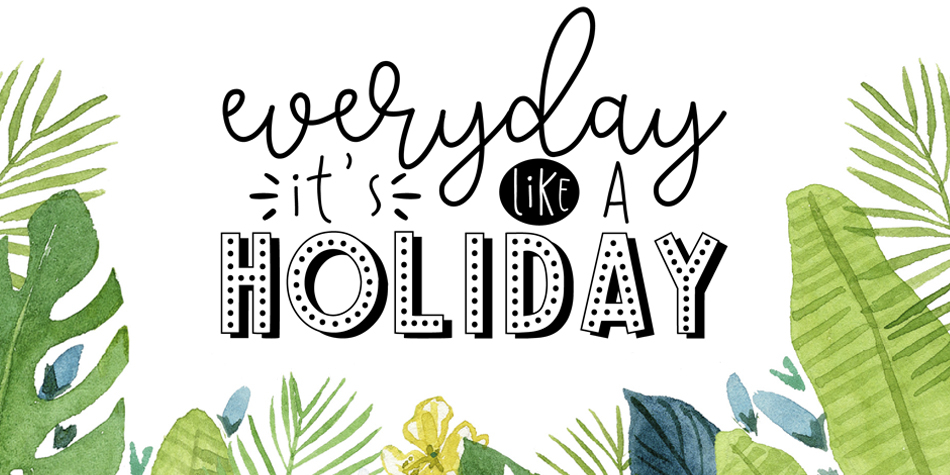
HITS
HITS is a hand drawn, script and display sans font family. This typeface has three styles and was published by Collapse Studio.
HITS it’s a holiday package with 3 font. Produced to give that handmade look, which adds more personality to your work. As a display typeface HITS best suitable for headlines, logotypes, printed quotes, posters, greeting card, invitation, t-shirt, and many more. To help you make a stunning design, Holiday also came with extras graphic elements.